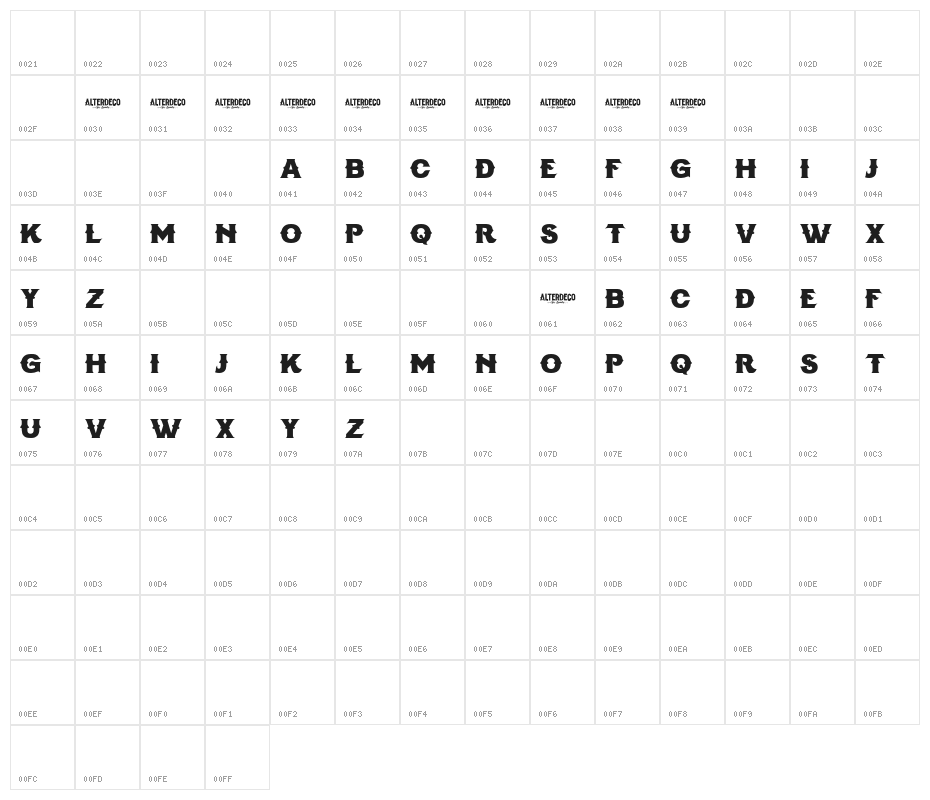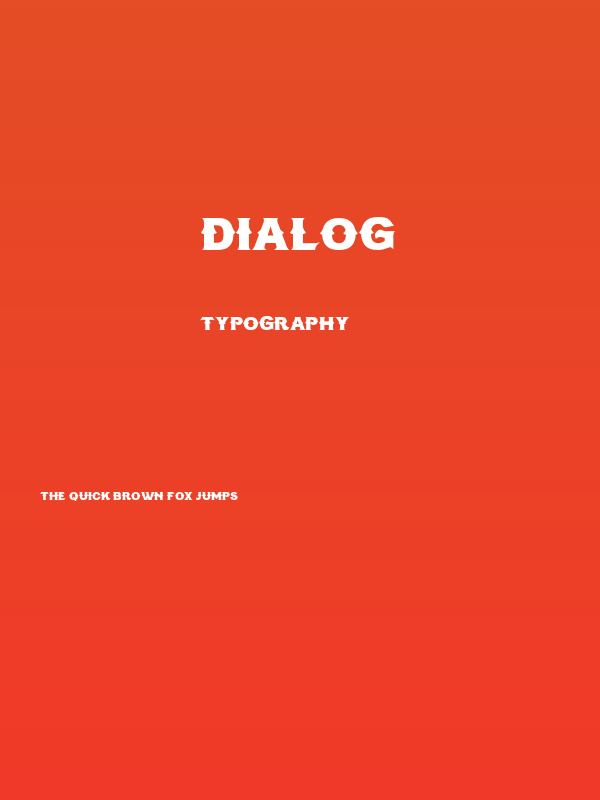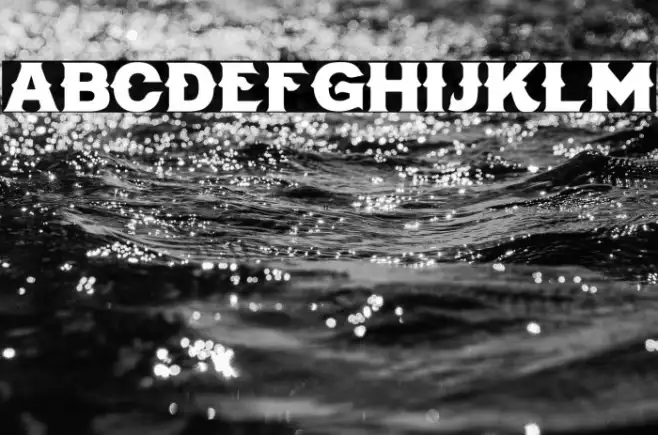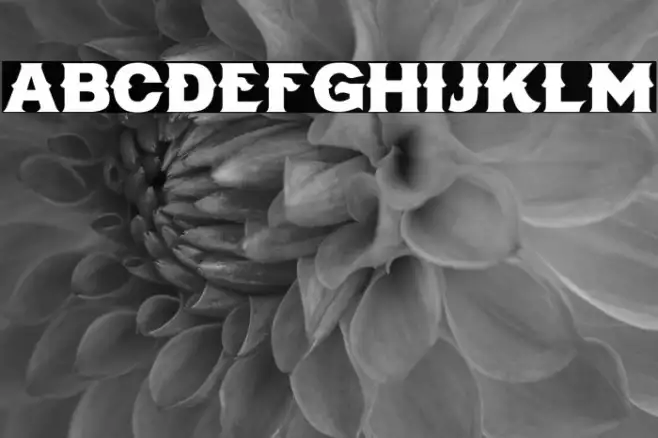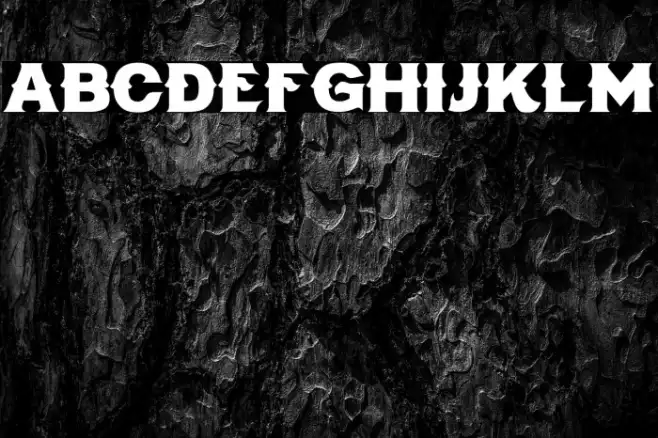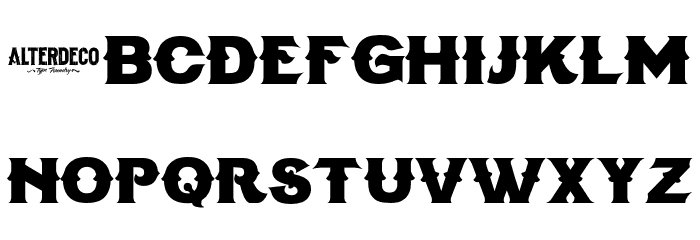
Dialog Font
Dialog Description
This font features a bold and striking design with a strong presence. The characters are crafted with sharp, angular edges and a distinct geometric style that gives it a modern yet vintage feel. The uppercase letters are particularly prominent, with a consistent thickness throughout each character, creating a uniform and cohesive look. The font's design is reminiscent of early 20th-century art deco influences, making it ideal for projects that require a touch of elegance and sophistication. The spacing between characters is tight, enhancing its bold appearance and making it suitable for impactful headlines or logos.
| Proposed Projects | Ideal for branding, poster design, and any project needing a vintage yet modern aesthetic. |